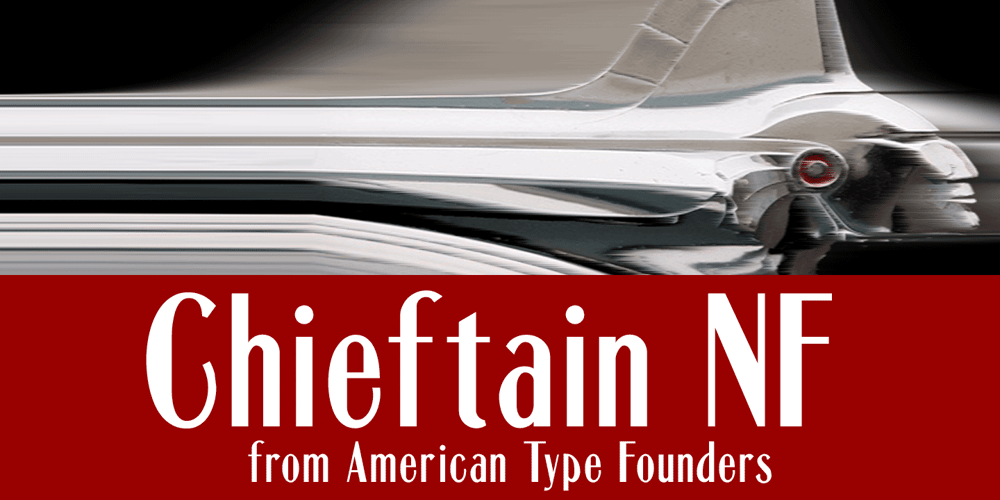
Chieftain NF Font Family was designed by published by Nick’s Fonts. Chieftain NF contains 1 styles and family package options. The American Typefounders 1893 specimen book included the pattern for this face, originally called Pontiac. Its subtle idiosyncrasies make it warm and inviting. Both versions of this font support the Latin 1252, Central European 1250, Turkish 1254 and Baltic 1257 codepages.